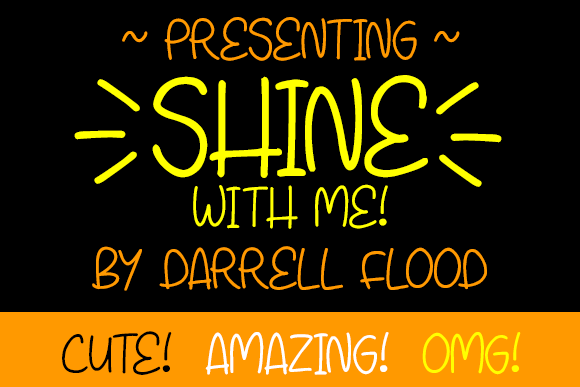
HomeScript FontsShine with Me Font Script Fonts Shine with Me Font FacebookXPinterestWhatsApp About Shine with Me Font A bright, shiny, fun filled font! Font created by Darrell Flood. DOWNLOAD NOW People also explored Star Font Tiny Lemon Font Ralyne Script Font Rowlink Story Font Renissa Font Upright Font Gabriela Font Sena Nespora Font Carolissa Font 294 0 TagsShine with Me Font Previous articleLove You Angel FontNext articleExpress Yourself Font LEAVE A REPLY Cancel reply Comment: Please enter your comment! Name:* Please enter your name here Email:* You have entered an incorrect email address! Please enter your email address here Website: Save my name, email, and website in this browser for the next time I comment. Personal Use Free Glosery Personal Use Free Read more about this font Pumpkin Type Halloween Font Personal Use Free Read more about this font Whitelight Personal Use Free Read more about this font Daisy Script Personal Use Free Read more about this font BLOG Fonts That Capture the Spirit of New York City New York City is more than just a place—it’s an experience, a rhythm, a visual language... Best Fonts for T-Shirt Design – Top 2025 Picks Exploring Font Trends Best Fonts for YouTube Videos: Make Your Thumbnails Stand Out